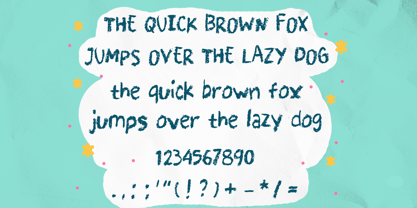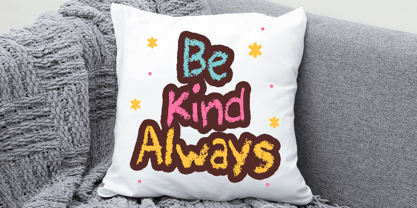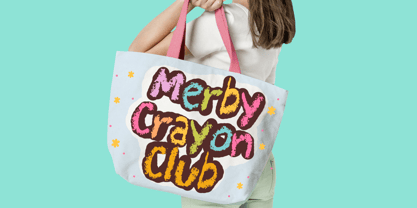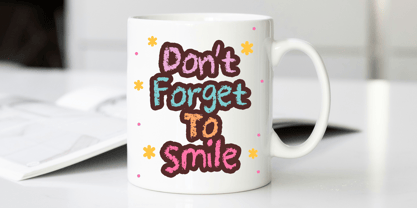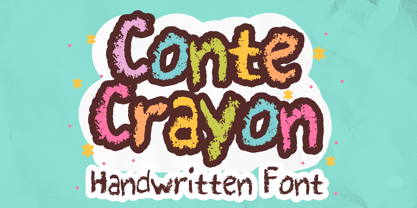
Conte Crayon
A família de fontes Conte Crayon foi desenhada por Gabriel Valentinus e publicada pela Mvmet. Conte Crayon contém 1 estilos. Saiba mais sobre esta família
Conte Crayon is a fun and playful crayon or chalk handwritten font suitable for everyday use. It will elevate a wide range of design projects to the highest level. You can use this font for many design ideas such as stickers, t-shirt designs, amazing logo designs, magazine or book covers, comics, cartoon drawings, and many more. This font will add a super cool touch to your designs!